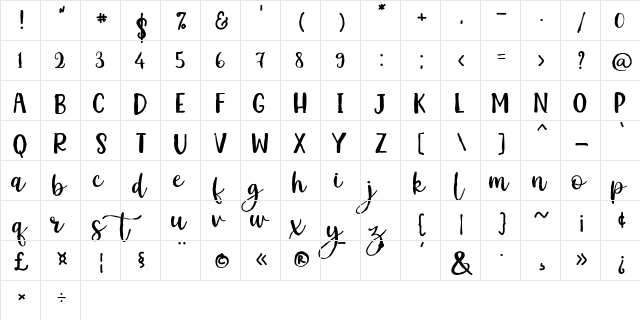
Kemistale Regular
Design Context for Kemistale Typeface
Kemistale is a composed and adaptable typeface that performs quietly and consistently across a wide range of design contexts.